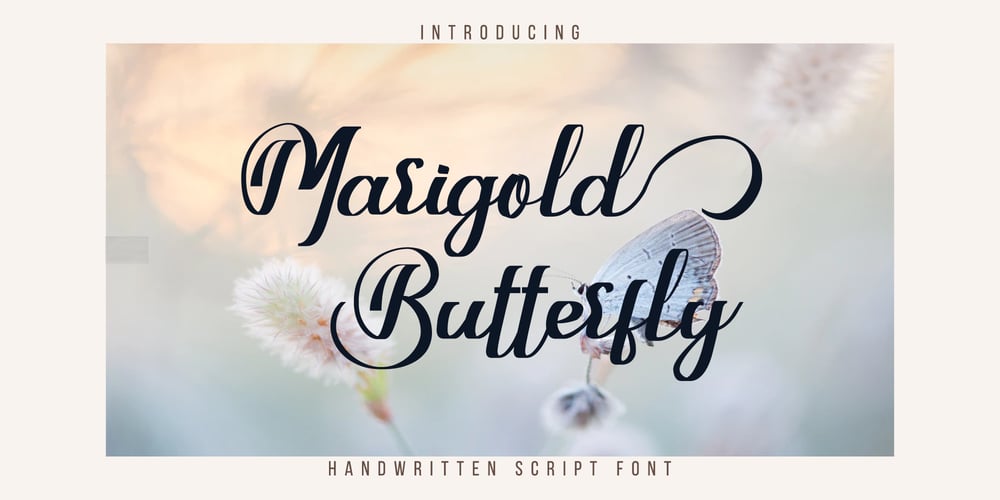
Marigold Butterfly Font Family was designed by Yahhya Anas Atok Illah and published by WNGSTD. Marigold Butterfly contains 1 styles and family package options. Marigold Butterfly is a unique and elegant handwritten font. It looks beautiful on a variety of designs requiring a personalized style. This font is PUA encoded which means you can access all glyphs and swashes with ease!